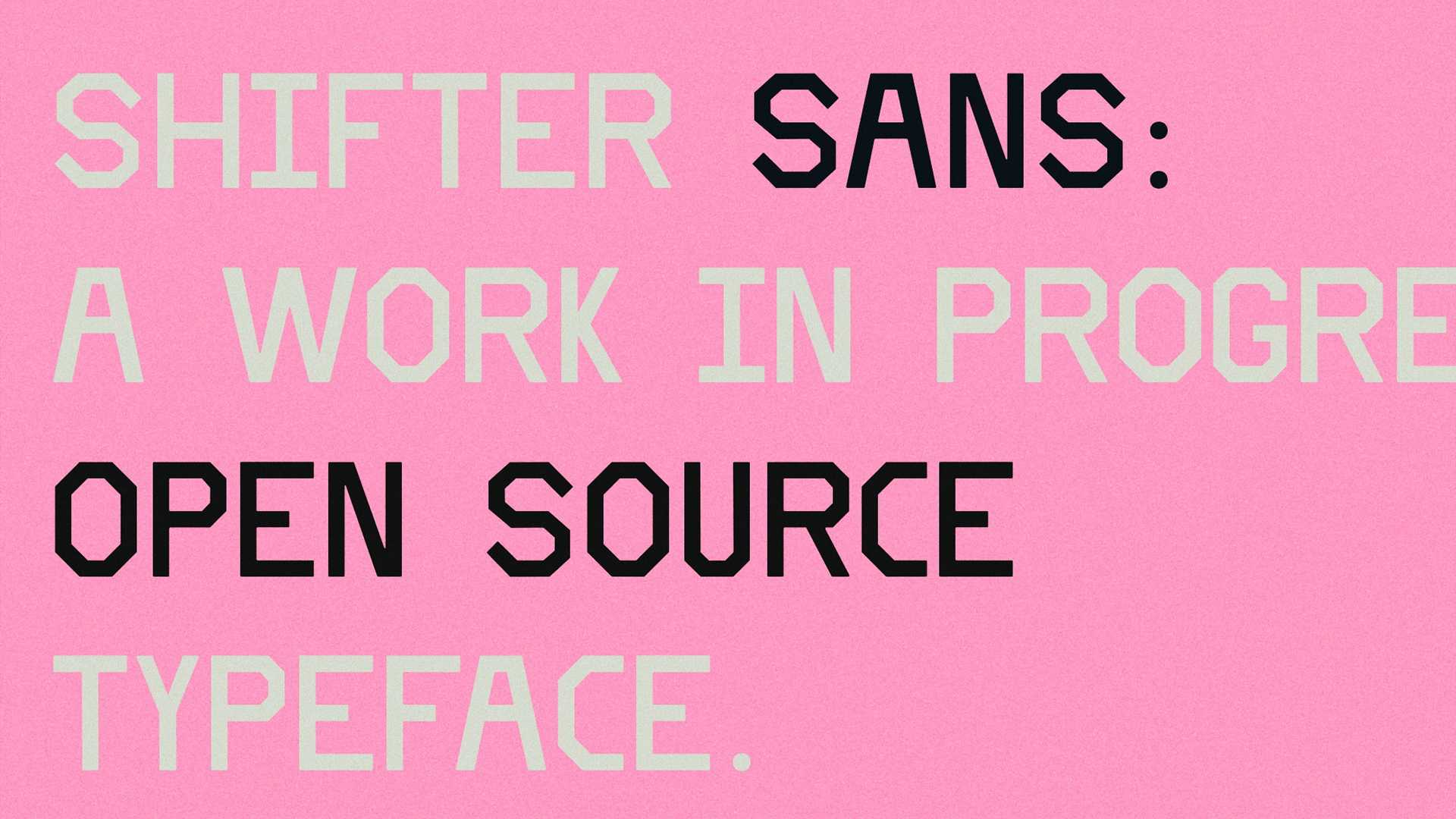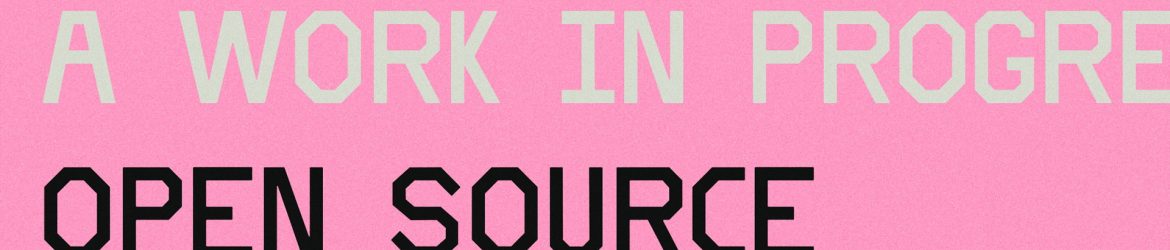
Download Shifter Sans font, a display typeface that is being designed as one of the cornerstones of the rebranding effort by Portuguese independent media company Shifter.
Designer: Ricardo Santos